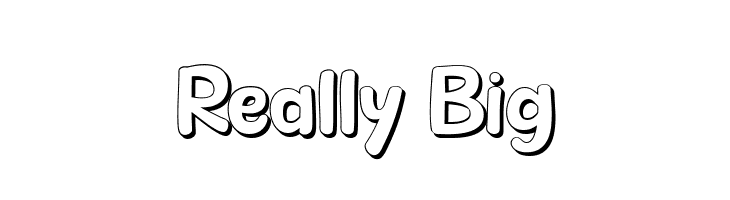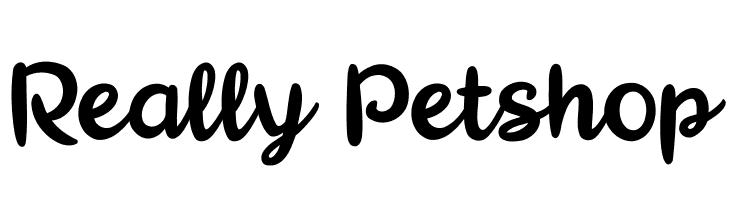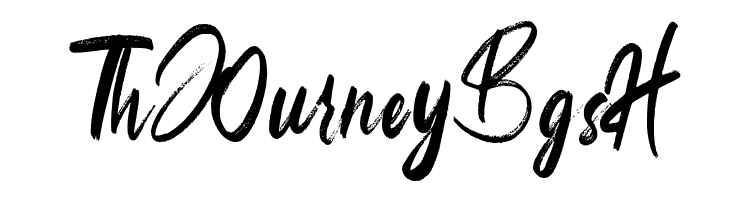
A flowing, elegant script font with a modern, handwritten style.
A bold, decorative font with a three-dimensional layered outline effect.
A bold, brush-style handwritten font with dynamic and fluid characteristics.
A geometric and calligraphic font with sharp, angular lines and subtle curves.
A bold, handwritten font with a playful and energetic style.
A graceful script font with flowing, cursive strokes and elegant curves.
A bold, angular font with a geometric and artistic style.
A classic, bold serif font with a hand-carved, historical appearance.
A classic italic font with medium contrast and elegant strokes.
A classic, high-contrast serif font with sharp, angular serifs.
Decorative Roman Empire icon set with bold silhouettes.
A classic Roman-style font with sharp serifs and consistent stroke width.
A bold, decorative font with a gradient effect and high contrast strokes.
A playful, bold, and hand-drawn font with a bubbly style.
A bold, playful font with rounded edges and a bubbly appearance.
A bold, expressive brush script font with dynamic strokes and artistic flair.
A high-contrast, elegant font blending modern and vintage styles with distinctive serifs.
A classic, elegant italic font with smooth curves and refined style.
A classic serif font with sharp serifs and clean lines, offering elegance and authority.
A bold, playful font with thick, rounded strokes and a whimsical touch.
A modern blend of Roman and Uncial styles with bold, sweeping curves and sharp serifs.
A bold, playful font with thick, rounded strokes and a unique personality.
A decorative font with classic charm, featuring characters enclosed in squares with elegant embellishments.
A display font composed of Roman architectural and historical silhouettes.
An elegant, flowing script font with a romantic and sophisticated style.
An artistic script font with flowing, interconnected letters and whimsical flourishes.
An ornate Gothic-inspired font with bold, angular lines and intricate flourishes.
A dramatic Gothic font with intricate detailing and high contrast.
A pixelated, retro-style font with a digital display aesthetic.
A pixelated, LCD-inspired font with a retro digital aesthetic.
A pixelated, retro-style font with a digital, 8-bit aesthetic.